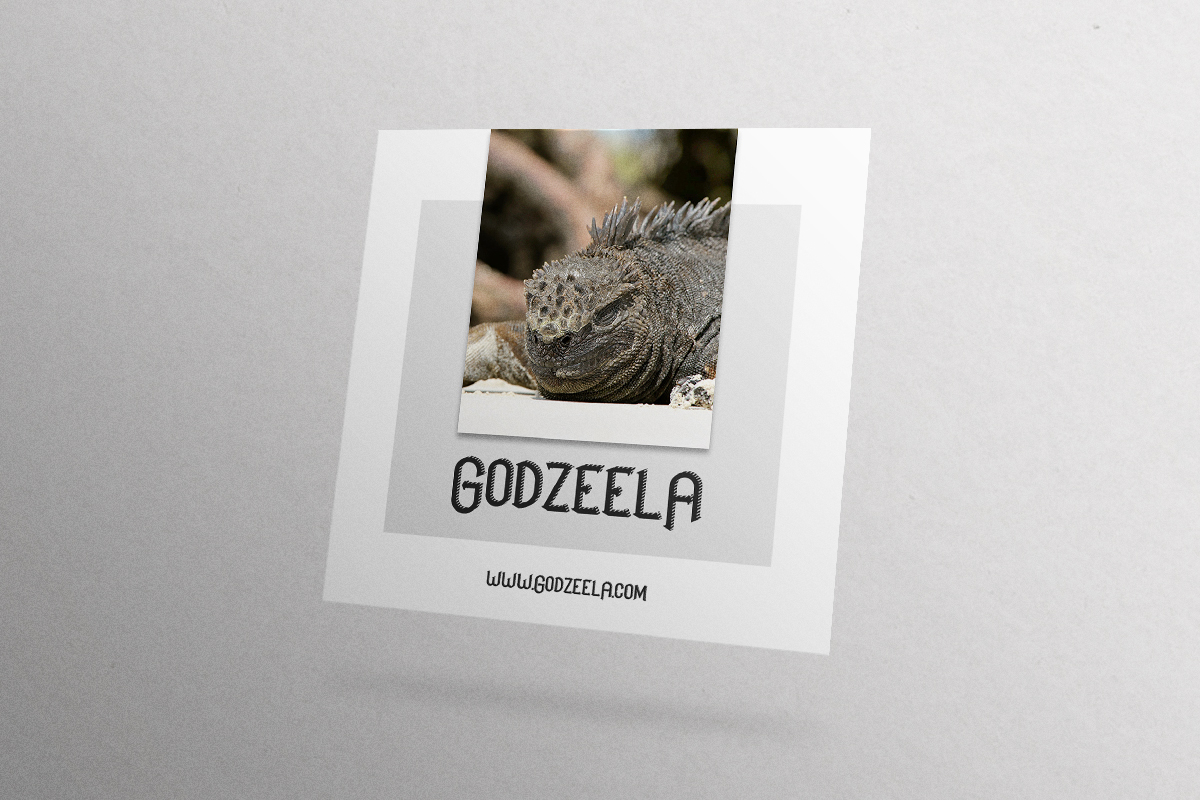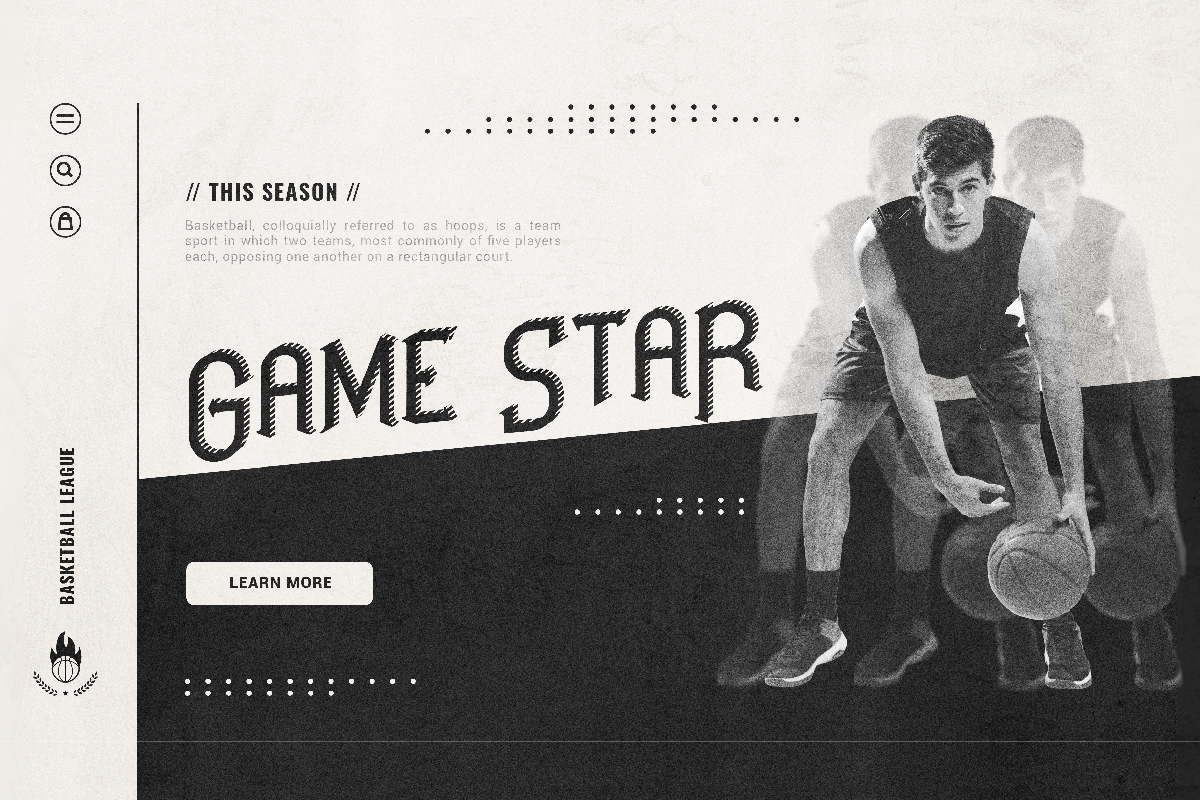
GameSet Font
GameSet Display Font
This dont comes with OTF File, TTF File, Woff File and we’ll also include Read-me help file txt. The font was handcrafted by Shalsa and Suci. GameSet Font will be great for any projects (require extended license) including : branding, logo, stationery, business card, signage, flyer, brochure etc. It will be great for many business industries : games, barber, salon, hair dresser, restaurant, café, music, automotive, classic, etc